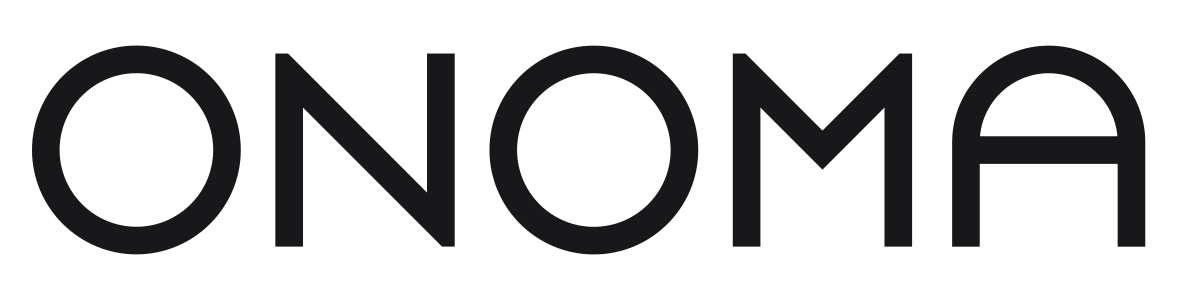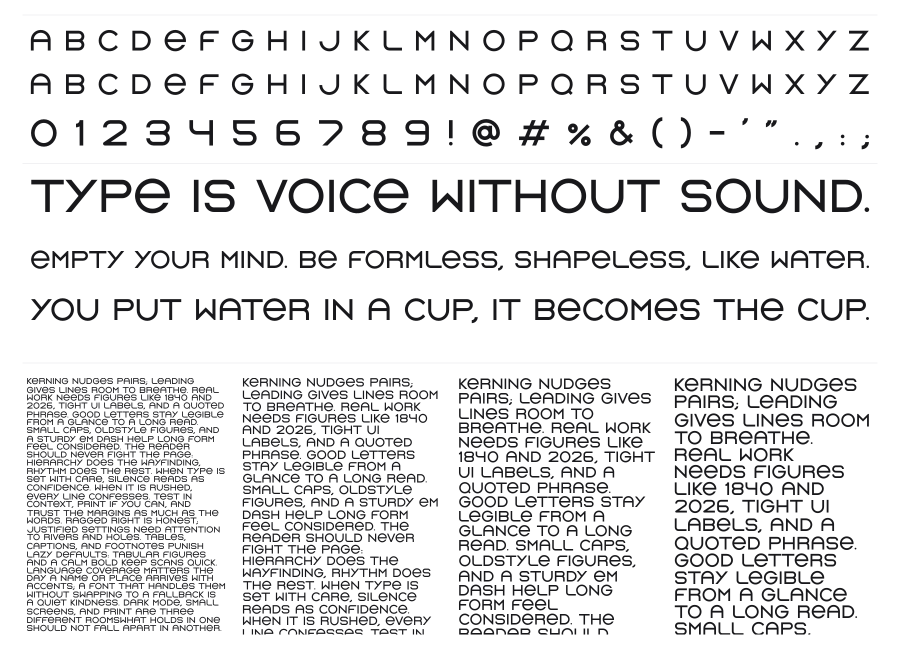
Onoma
Onoma is a wide geometric sans-serif built on near-perfect circular forms and monoweight strokes. The generous proportions and open apertures give it a calm, modern presence without the coldness of strict geometric grotesques. It reads confidently at headline sizes and carries a clean elegance suited to branding and editorial work.